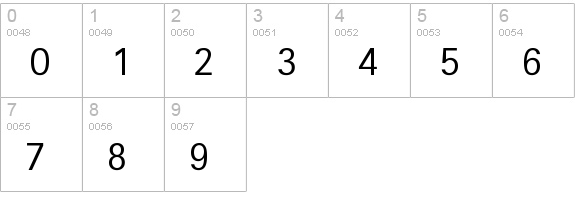
MaximaEF-Light is a refined, elegant variant in the MaximaEF typeface family \xE2\x80\x94 well suited to elegant body text, refined sub-headings, and luxury branding.
MaximaEF-Light is a sleek and elegant font that exudes sophistication and modernity. With its delicate lines and balanced proportions, this font is perfect for adding a touch of refinement to your projects. The light weight of MaximaEF-Light gives it a subtle and airy appearance, making it ideal for use in a variety of design applications. Best of all, MaximaEF-Light is available for free download at FontsMarket.com. This means you can easily access this stylish font and incorporate it into your creative endeavors without any cost. Whether you're designing a website, crafting a logo, or working on a print project, MaximaEF-Light is a versatile and attractive choice that will elevate your design aesthetic. Download MaximaEF-Light today and enhance your designs with its timeless beauty and effortless charm.